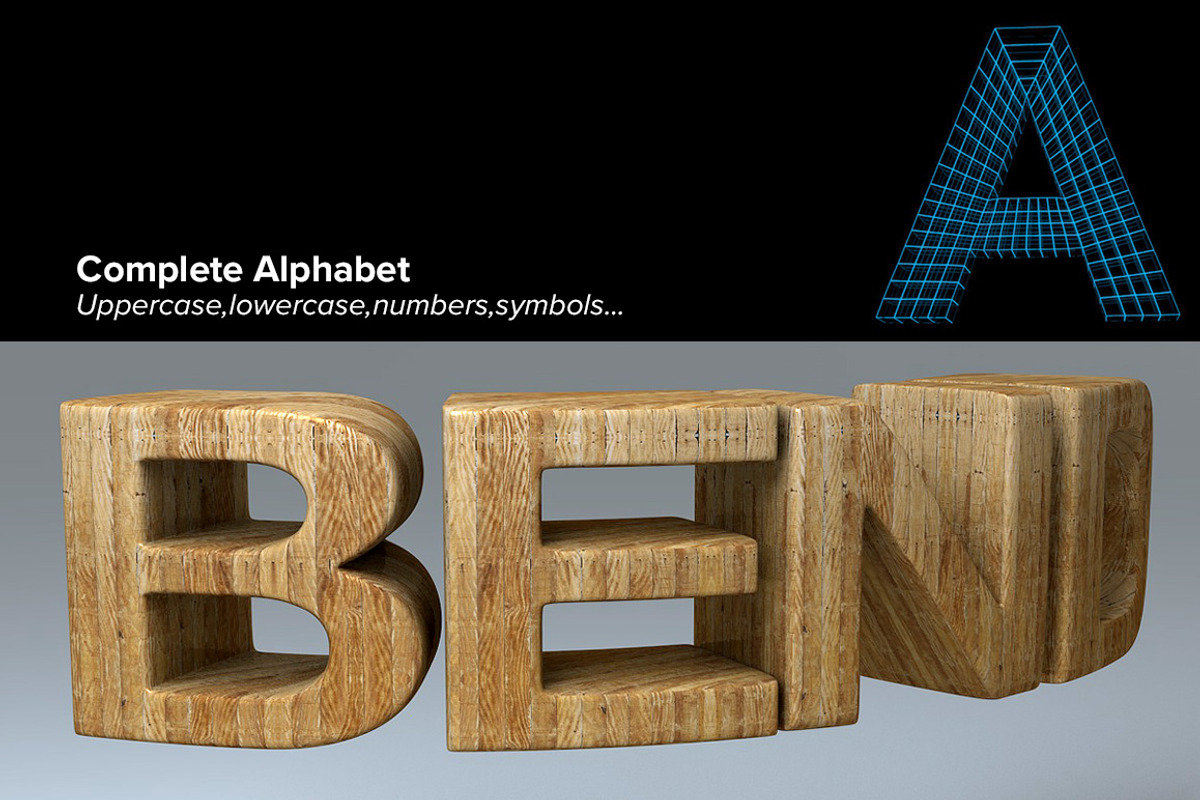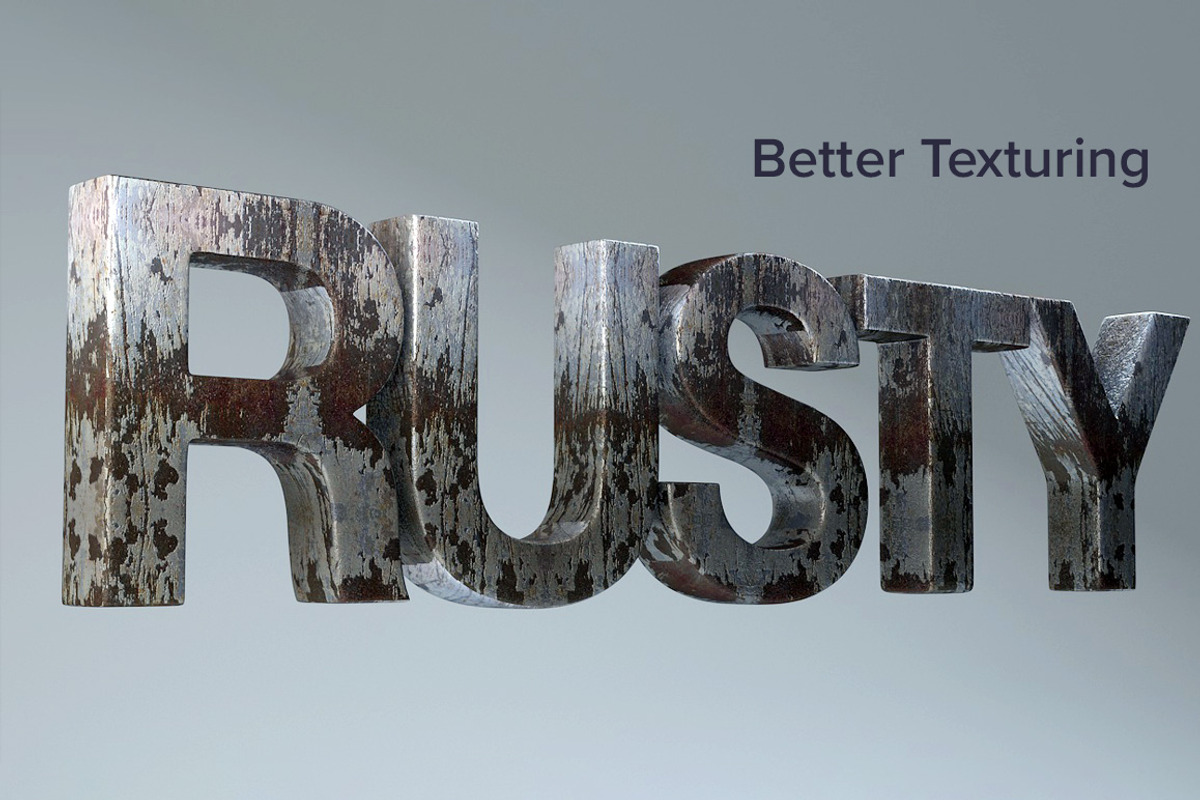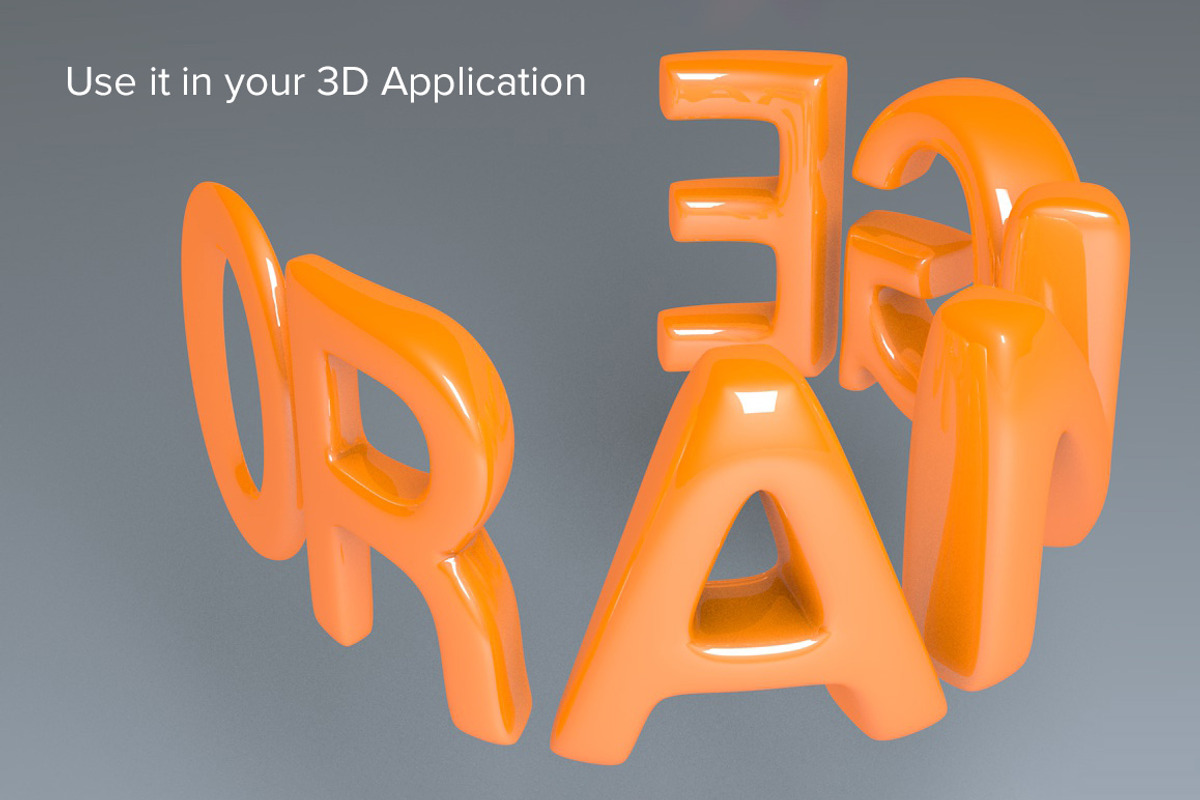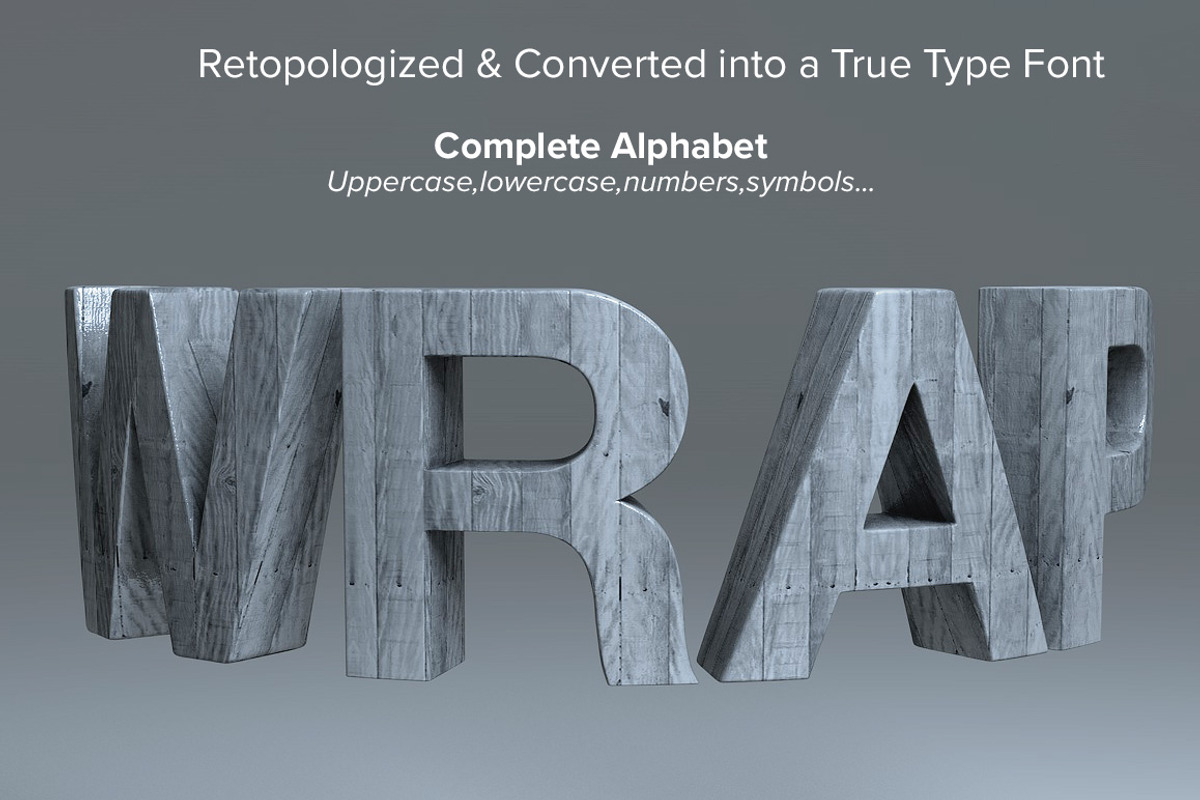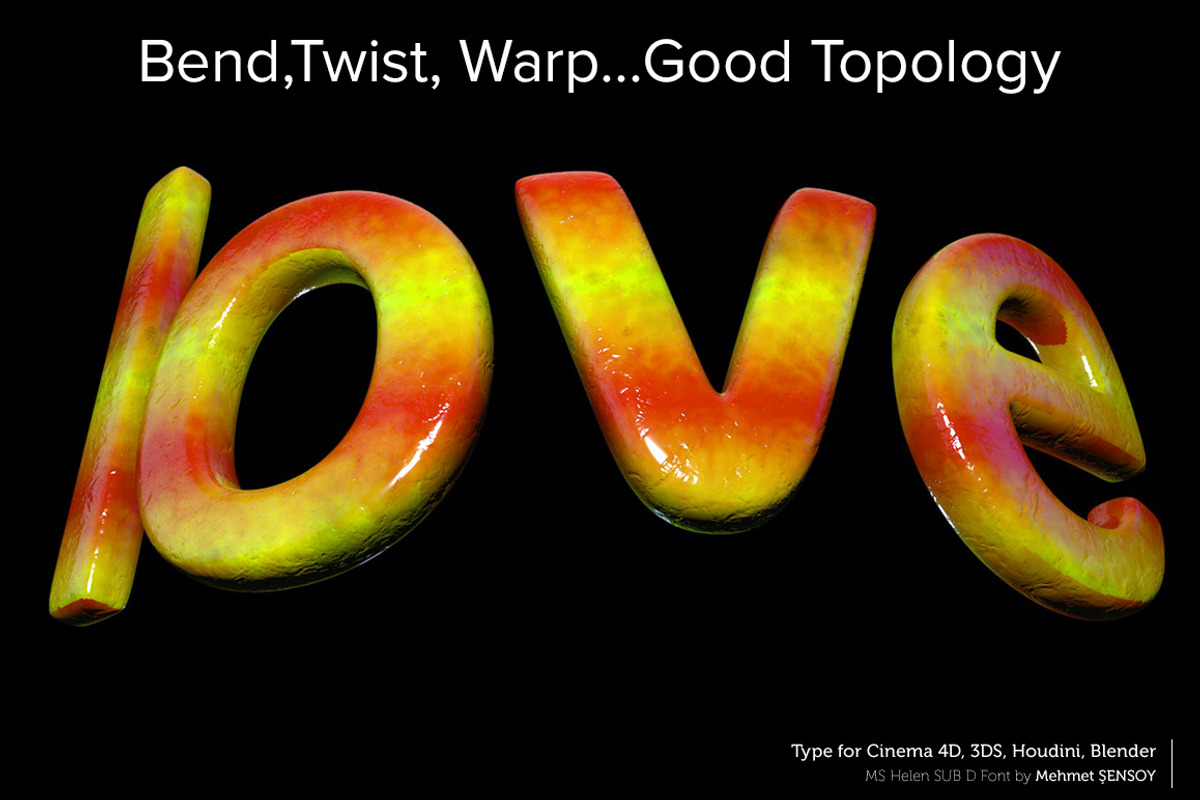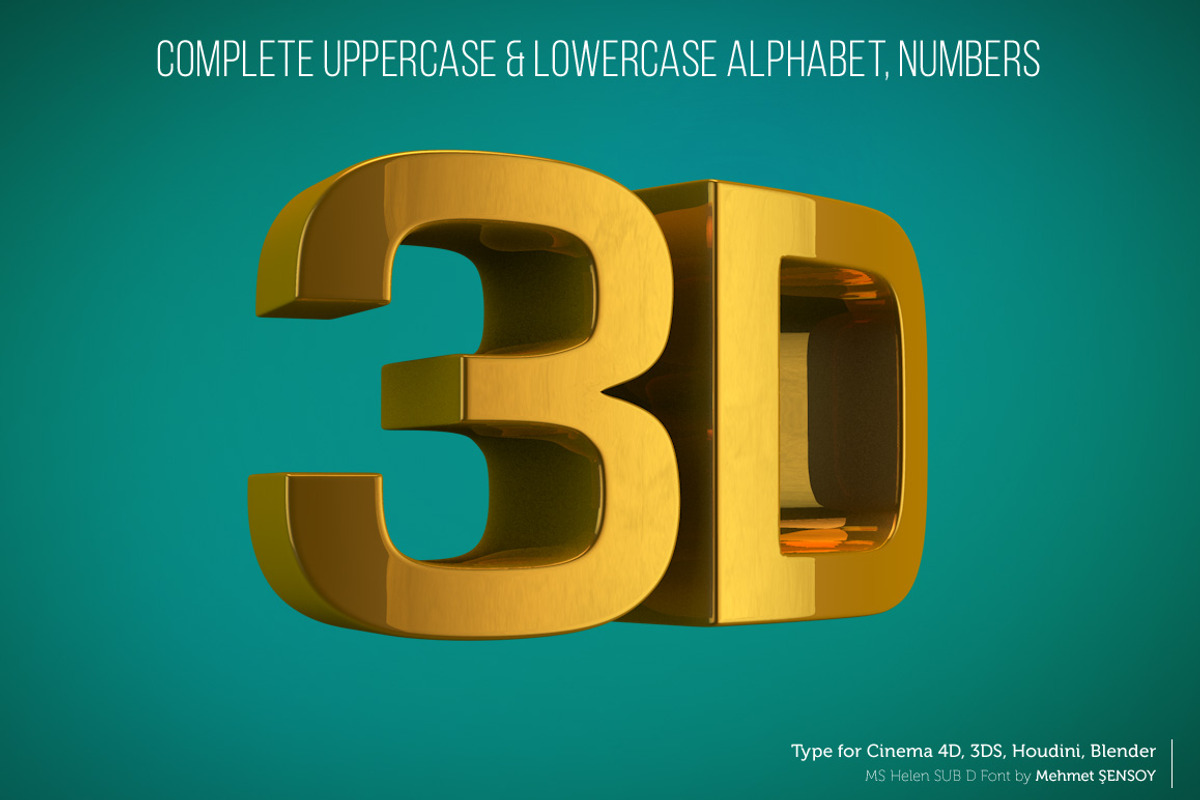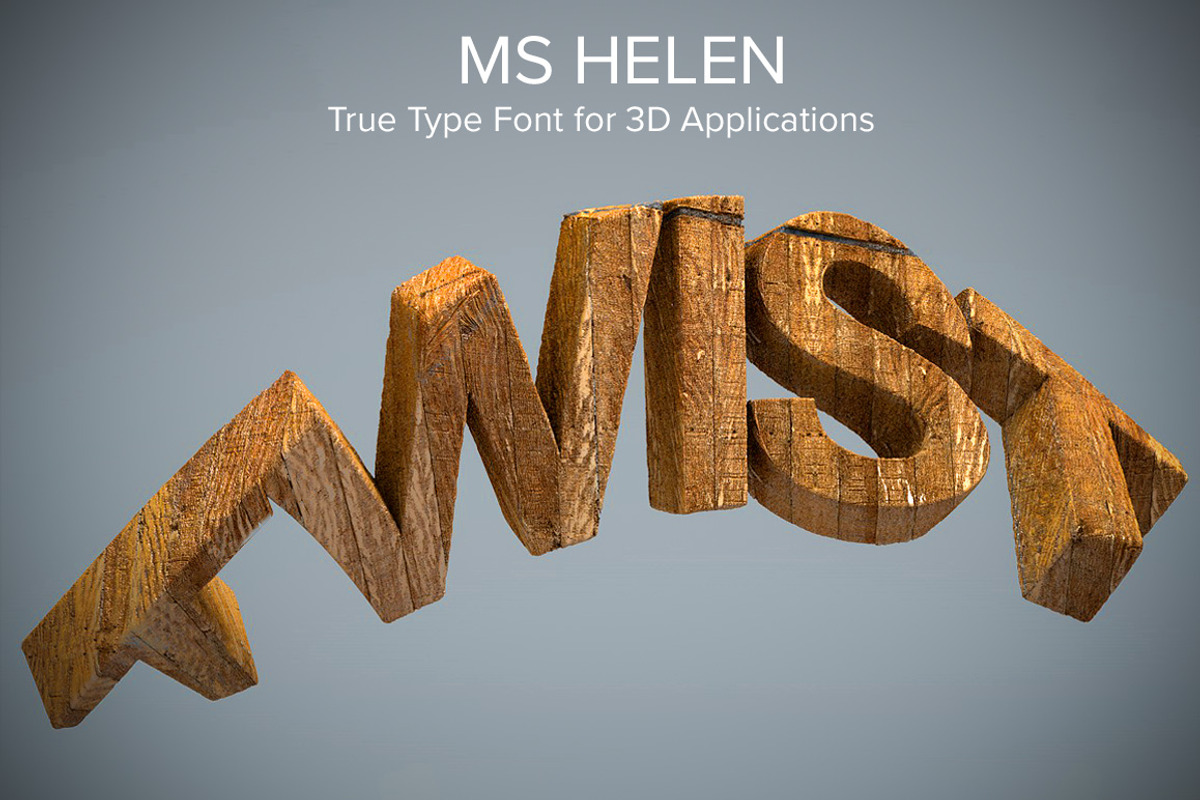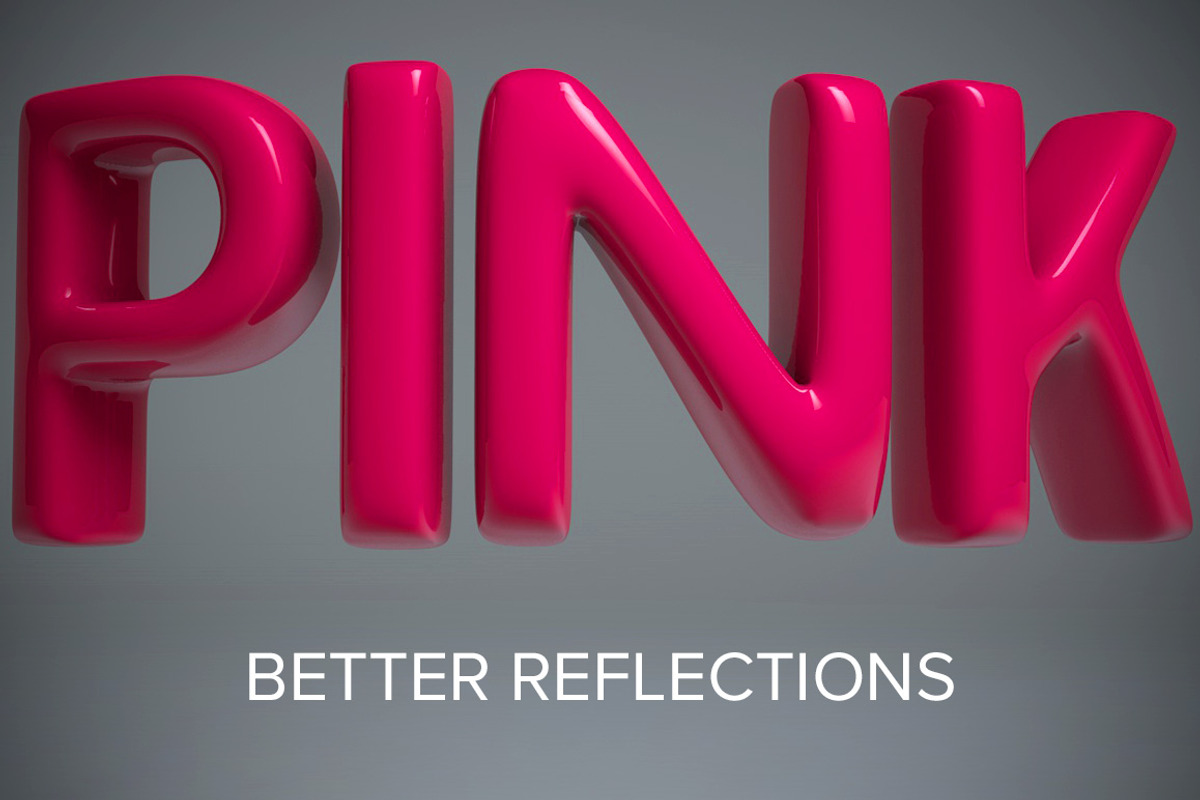
MS Helen Typeface for 3D
MS Helen Typeface for 3D by Creative Graphics is a font selected for branding, posters, packaging, typography.
Why MS Helen Typeface for 3D is worth a look
MS Helen Typeface for 3D by Creative Graphics fits naturally into Branding, posters, packaging, typography.